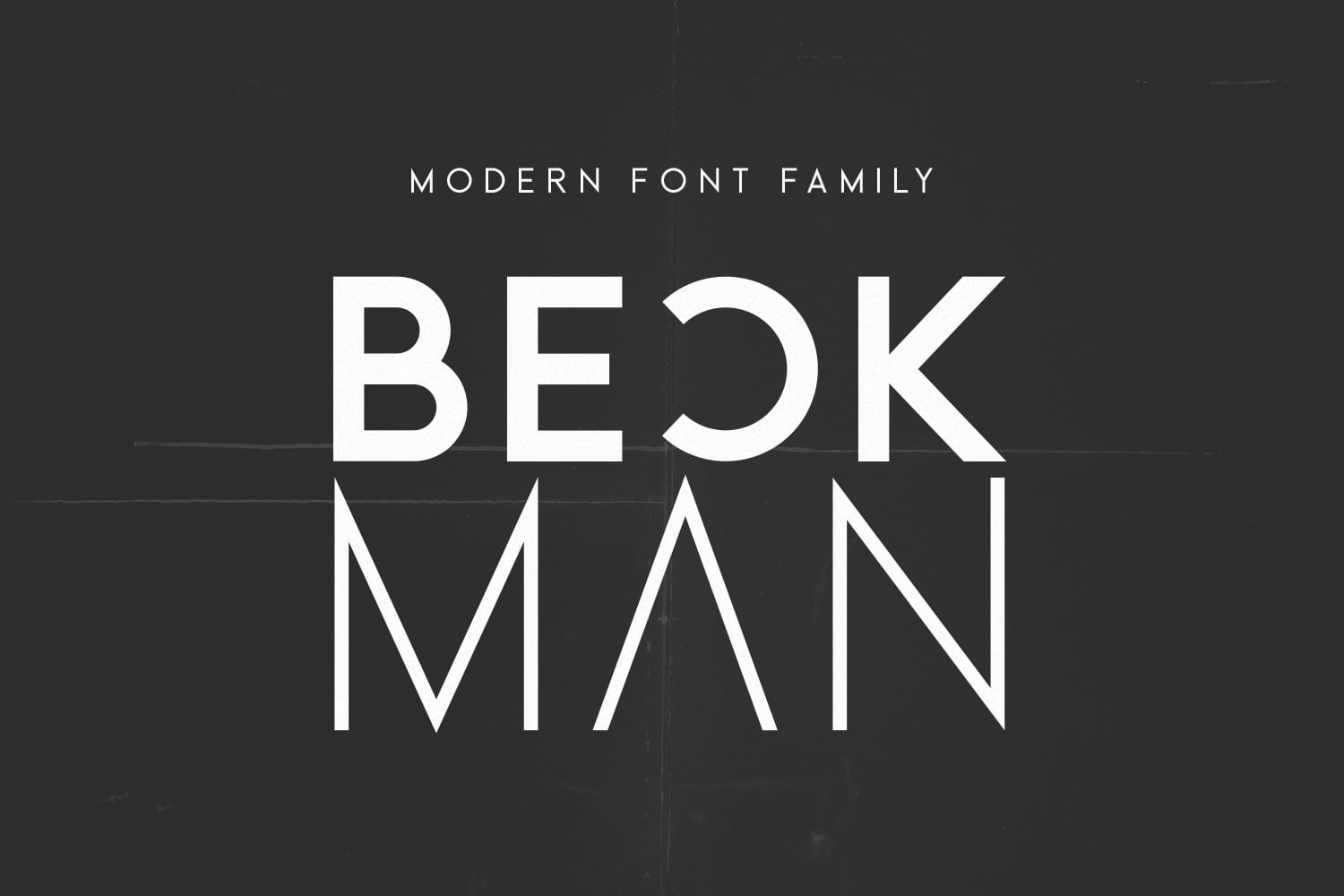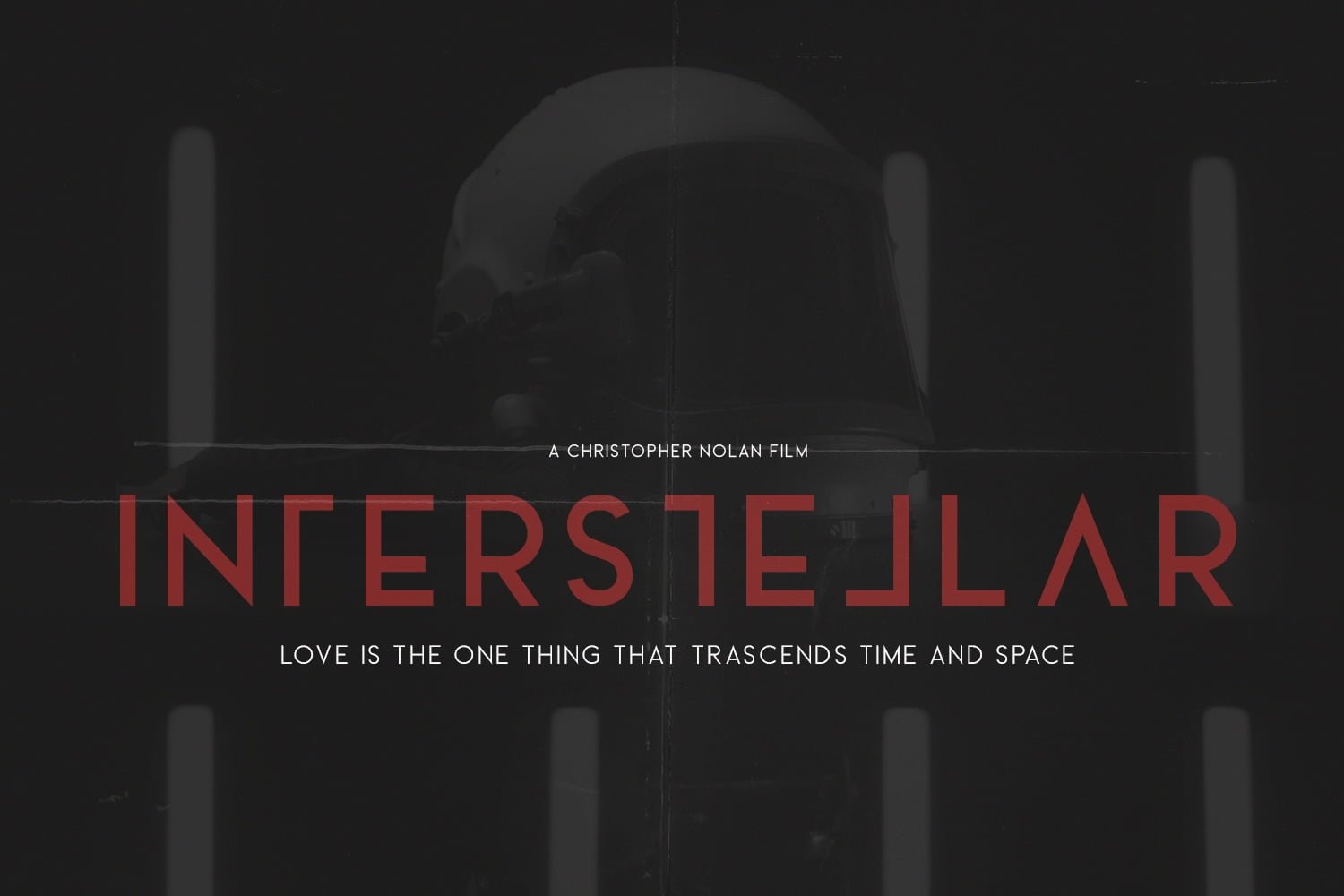
From its geometric shapes and distinct circular forms, Beckman is a modern and minimalist sans-serif font family. The combination of minimal and geometric elements renders a modern design. Beckman includes 6 fonts, clean and modern caps, thereby creating more variability. This is irreproachable sans serif to diversify your headlines, branding visual identity, poster, logo, magazines and etc.
- 6 Weights Sans (Light, Book, Regular, Medium, Heavy, Black )
- Alternate Glyphs
Beckman Sans